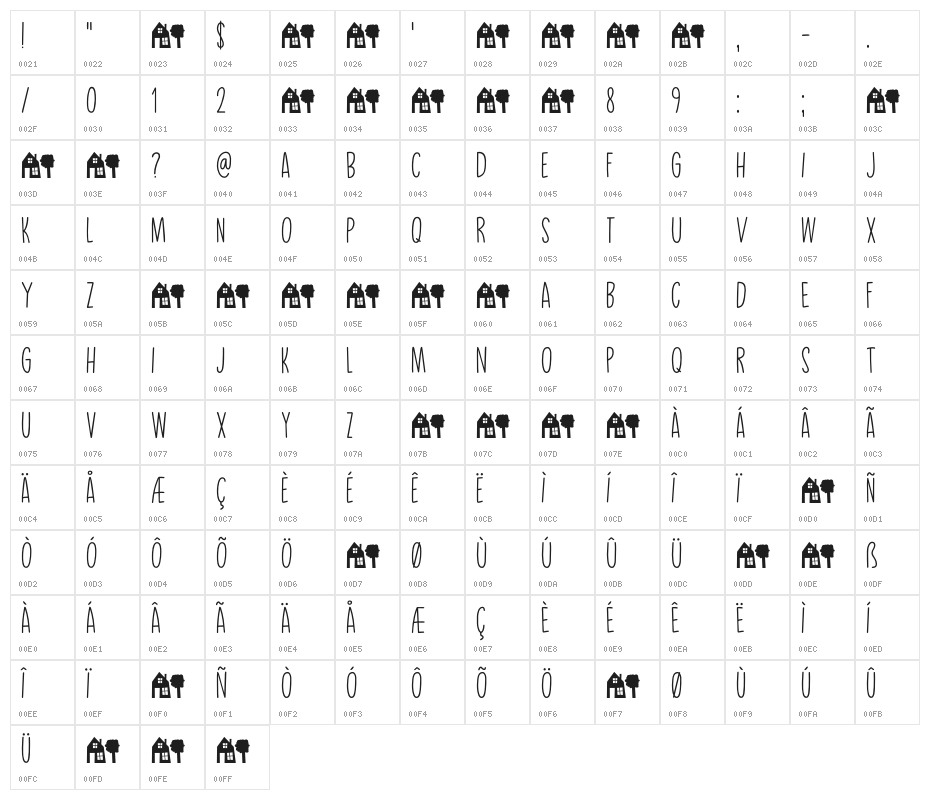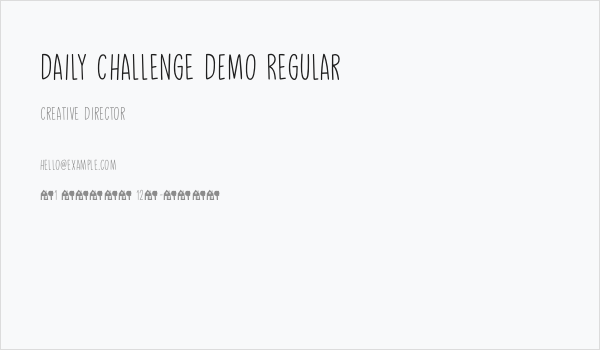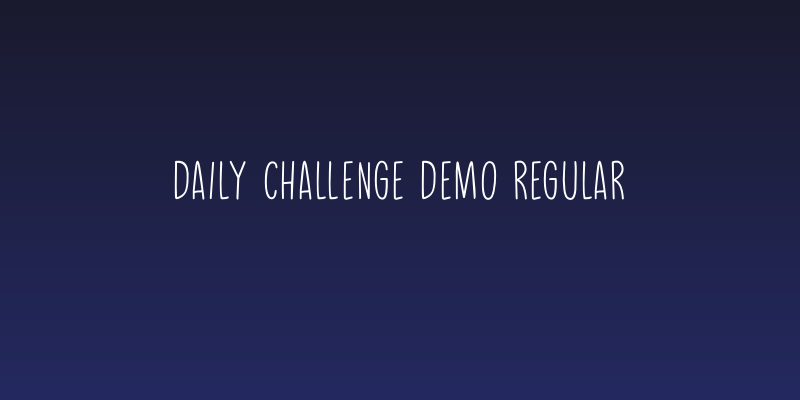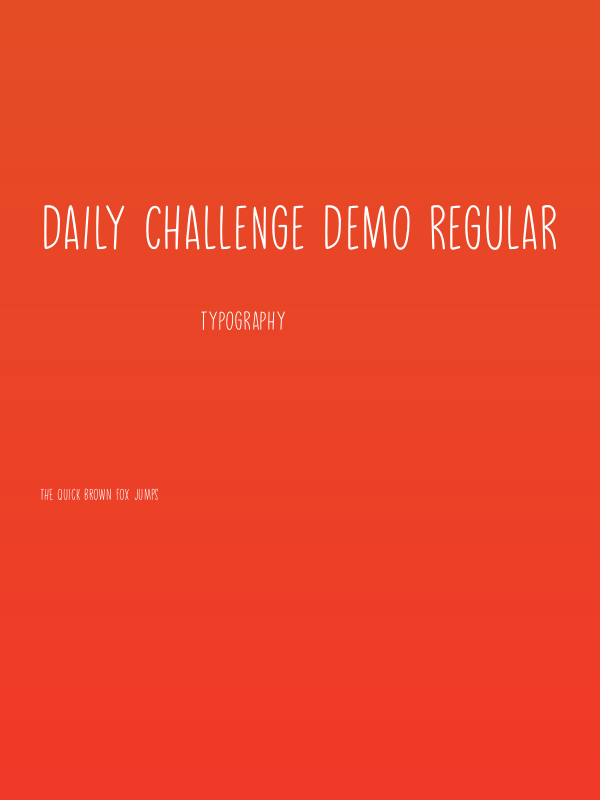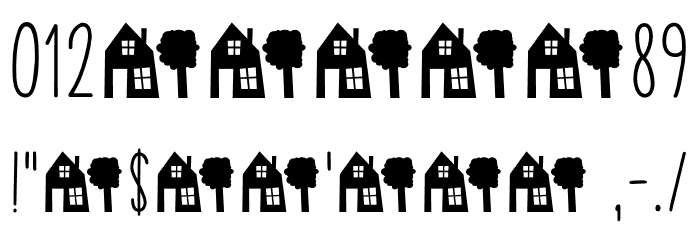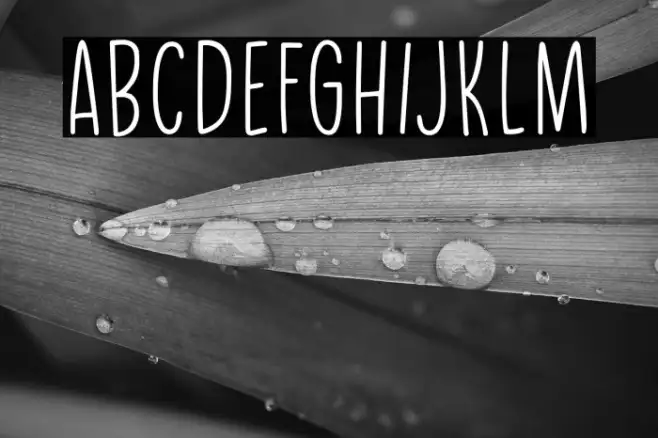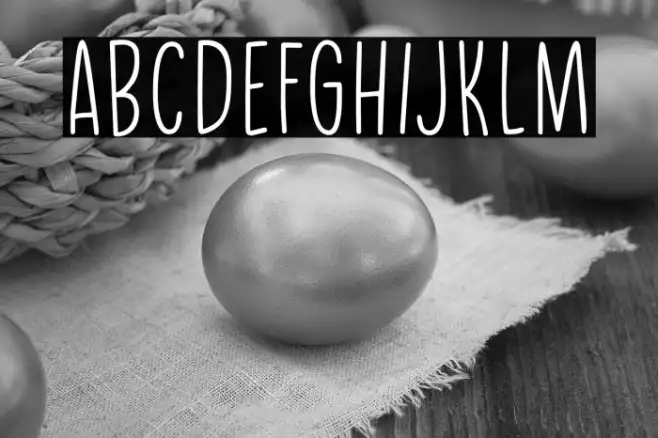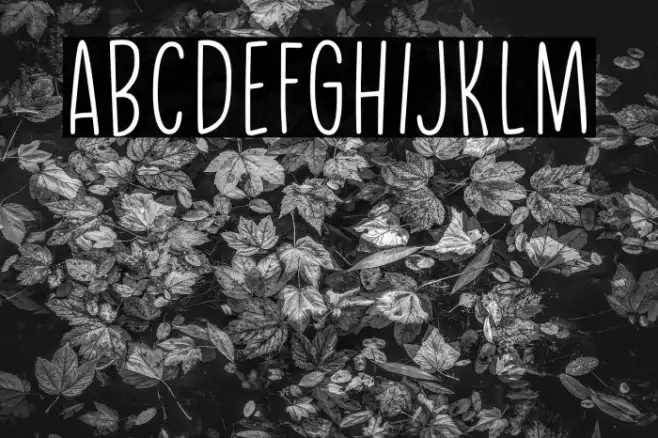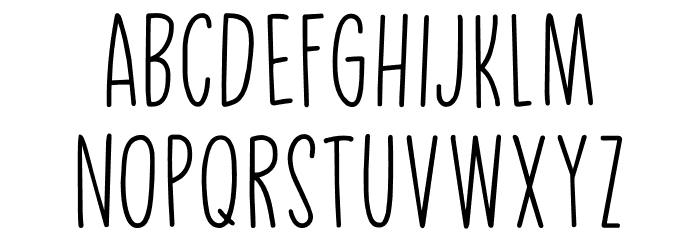
Daily Challenge DEMO Regular Font
Daily Challenge DEMO Regular Description
This font features a playful and casual handwritten style, characterized by its tall, narrow letters with a slight slant. The strokes are consistent in width, giving it a uniform appearance. The uppercase and lowercase letters maintain a cohesive look, with rounded edges that add a friendly and approachable feel. The numbers and special characters follow the same design principles, ensuring a harmonious overall aesthetic. This font is well-suited for projects that require a personal touch, such as invitations, greeting cards, or children's book covers.
| Proposed Projects | Ideal for invitations, greeting cards, children's books, and playful branding. |